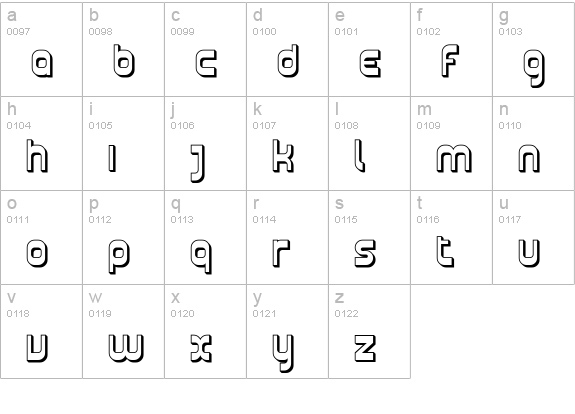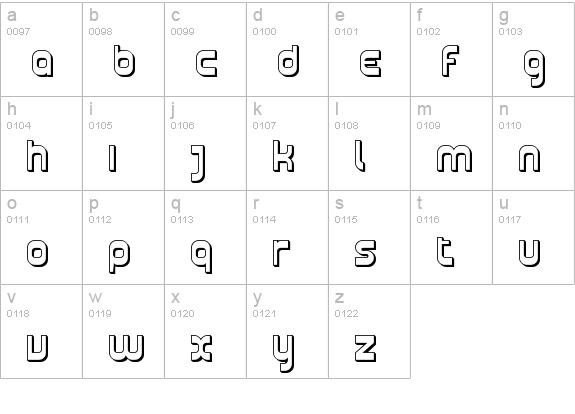
Plasmatica Shaded font is a stunning display typeface that will add a touch of futuristic elegance to any project. With its bold and sleek design, this font is perfect for headlines, logos, posters, and other creative designs that require a contemporary and eye-catching appearance. The unique feature of Plasmatica Shaded font lies in its shaded characters, giving it a three-dimensional effect that truly stands out. The carefully crafted curves and sharp lines create a sense of movement and energy, making this font perfect for conveying a sense of dynamism and innovation. What sets Plasmatica Shaded font apart is that it is not only visually captivating but also freely available to download. You can easily access this font at FontsMarket.com, a reputable and reliable source for high-quality fonts. Whether you are a professional designer or an amateur enthusiast, you can now explore the endless possibilities of this captivating typeface without any cost or restrictions. Plasmatica Shaded font is compatible with various design software and is suitable for both print and digital projects. Its versatility allows you to use it in a wide range of applications, from branding and advertising to web design and social media graphics. By incorporating Plasmatica Shaded font into your designs, you will instantly elevate your creations to a whole new level. Its striking visual appeal combined with its availability as a free download makes it an irresistible choice for anyone seeking to make a bold statement with their typography. Download Plasmatica Shaded font today and unleash your creativity like never before.